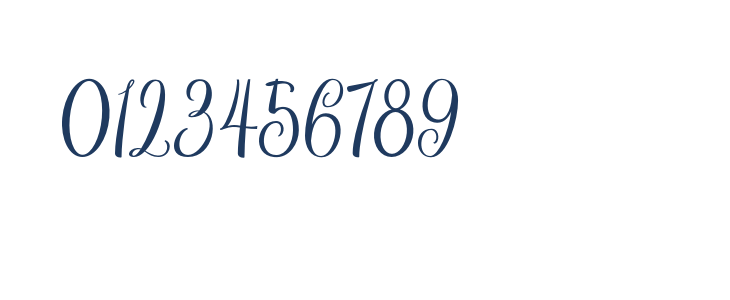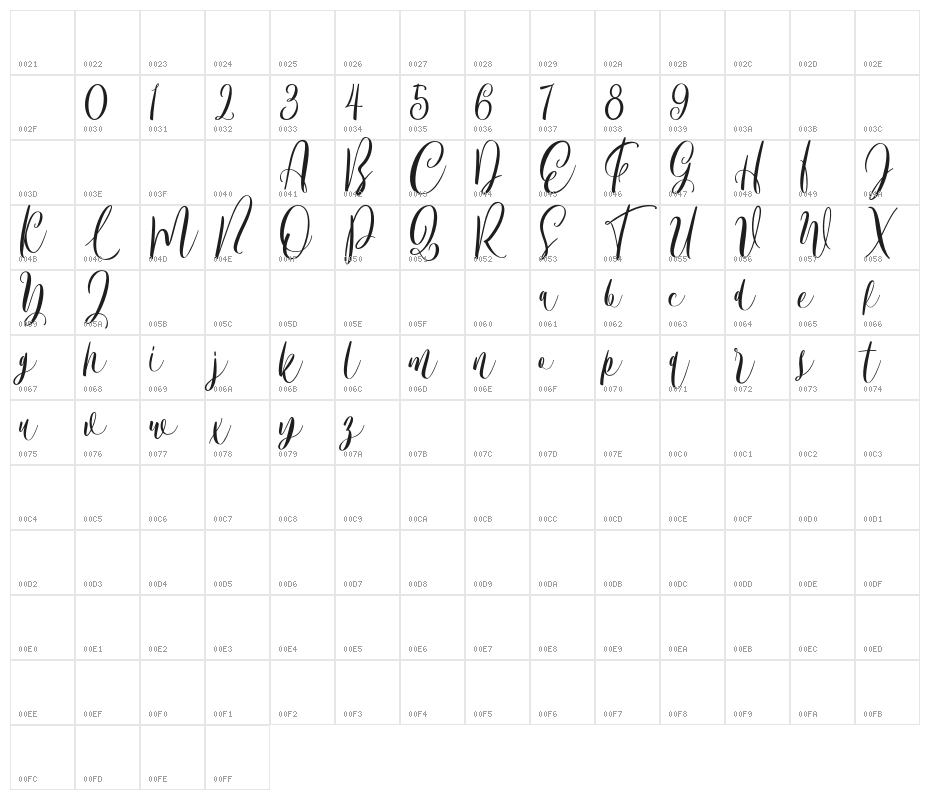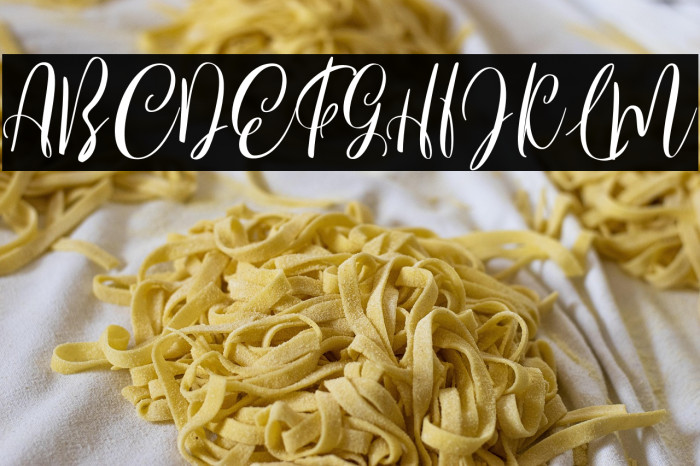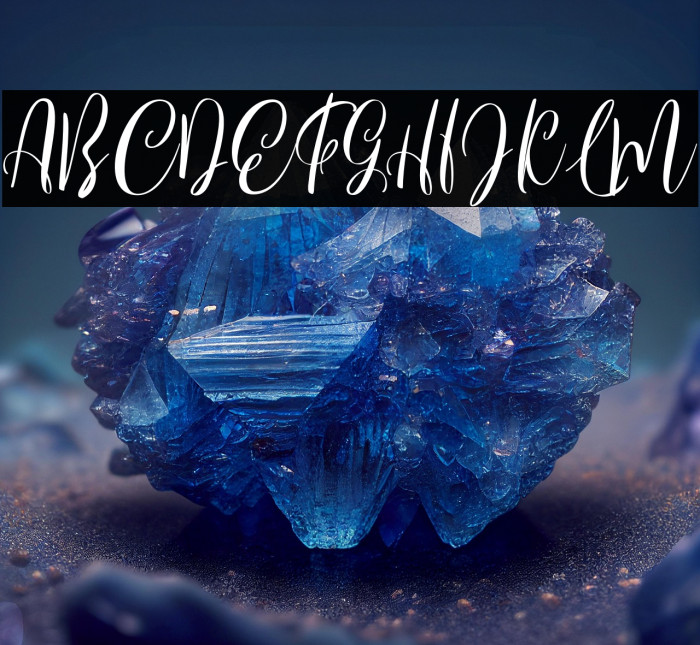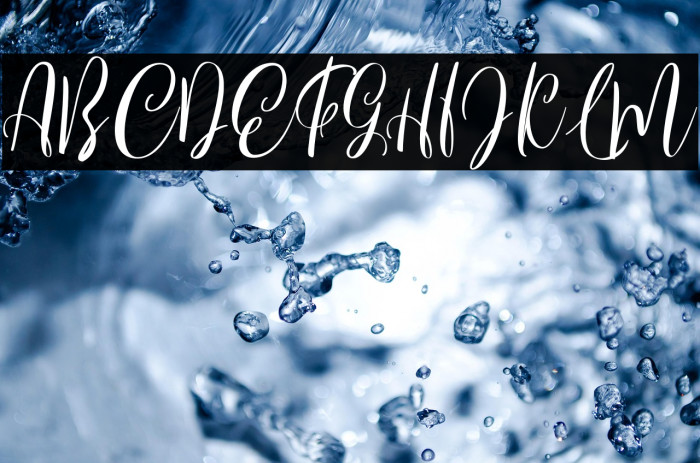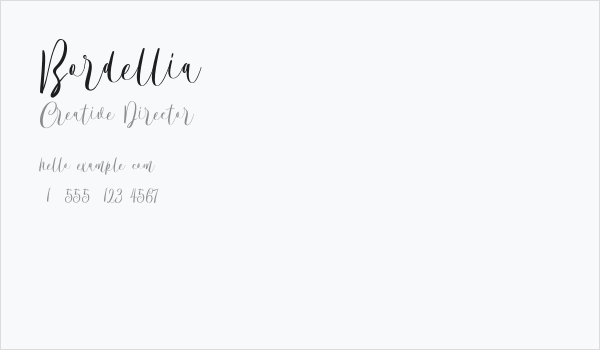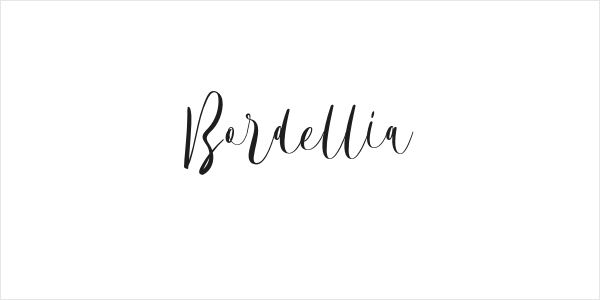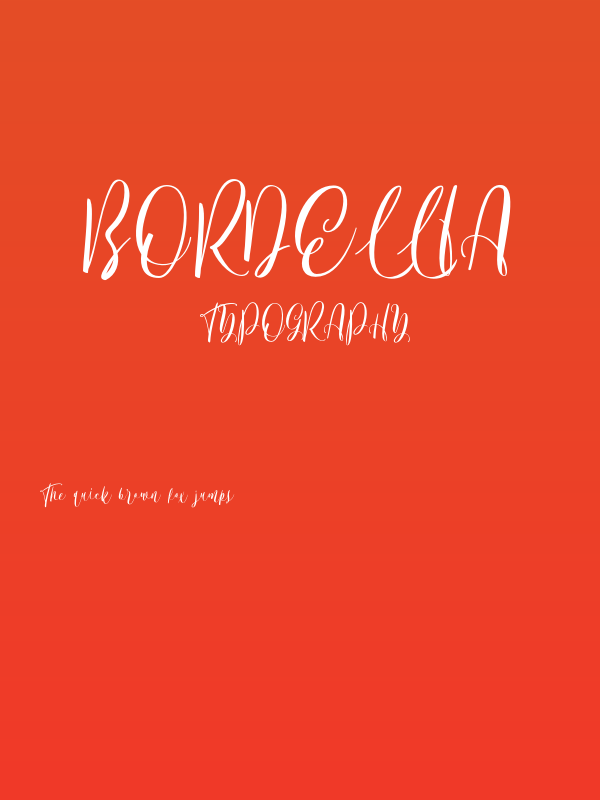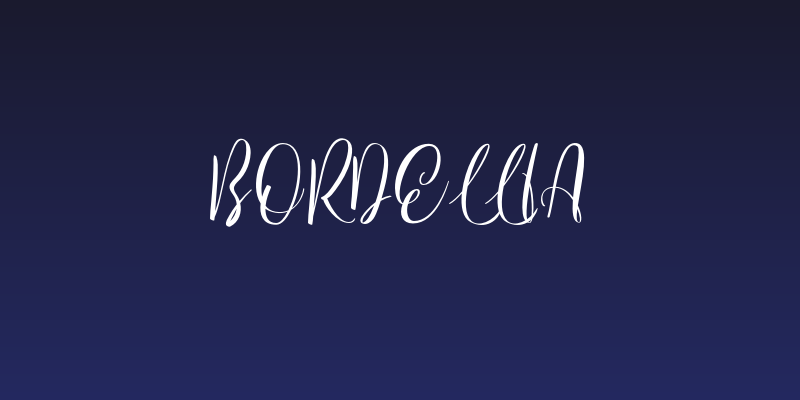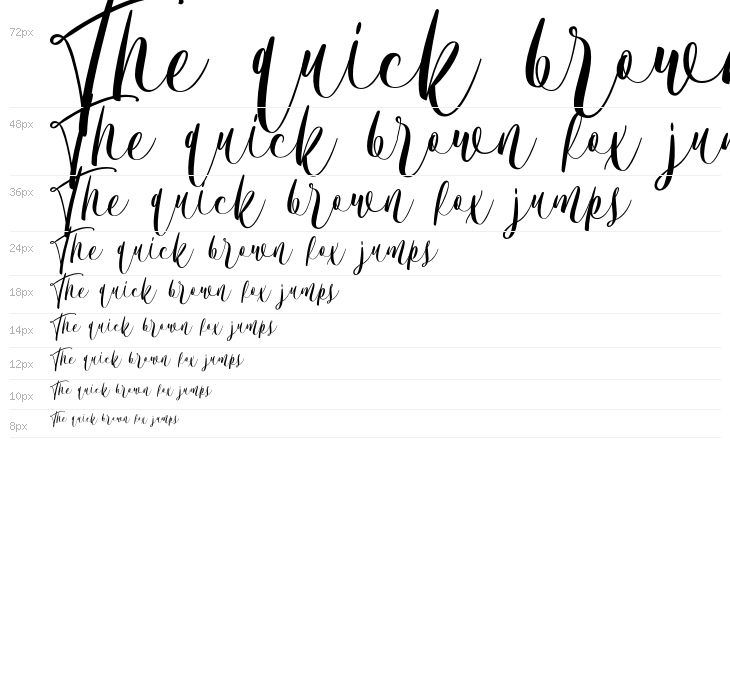
Bordellia Font
Bordellia Description
This font features an elegant and flowing script style, characterized by its smooth, cursive letterforms that mimic the fluidity of handwriting. The uppercase letters are tall and graceful, with sweeping curves and loops, while the lowercase letters maintain a consistent slant and rhythm, enhancing the overall harmony of the text. The numerals are equally stylish, with distinctive, rounded shapes that complement the alphabet. The special characters are thoughtfully designed to integrate seamlessly with the letters, adding versatility to the font. The strokes vary in thickness, providing a dynamic contrast that adds to the font's visual appeal.